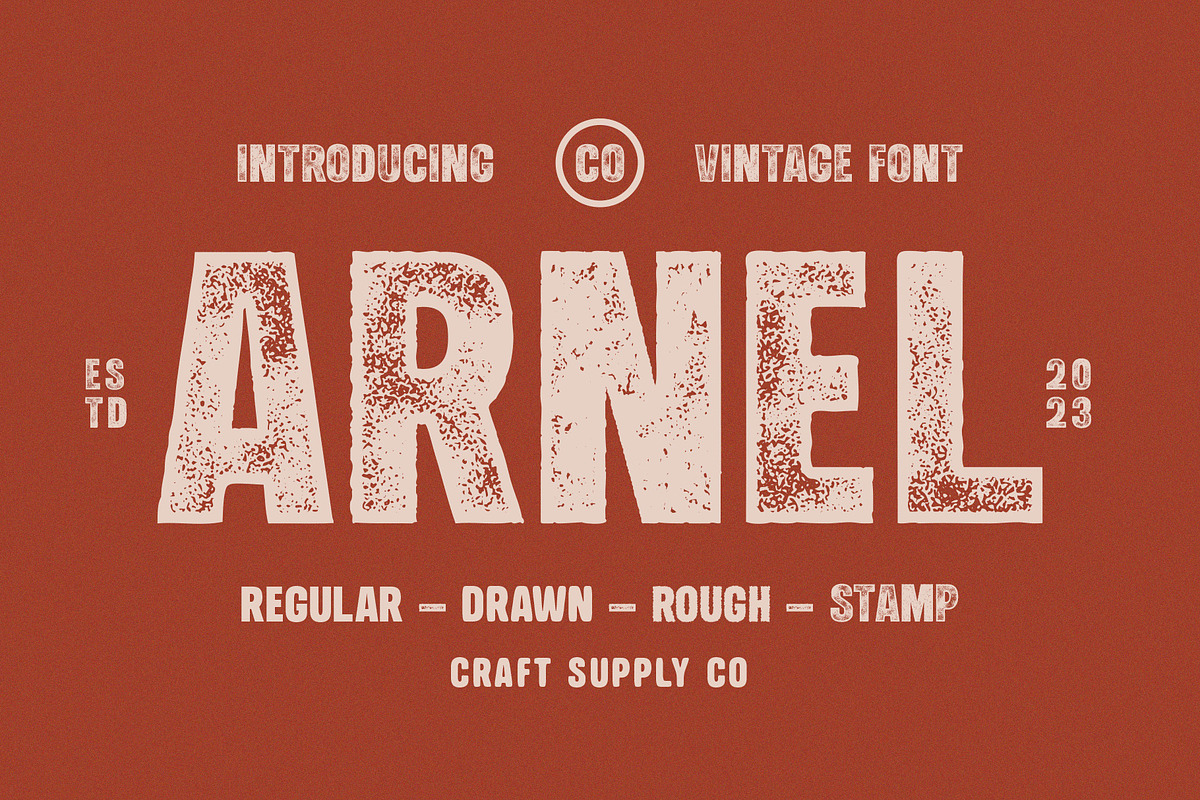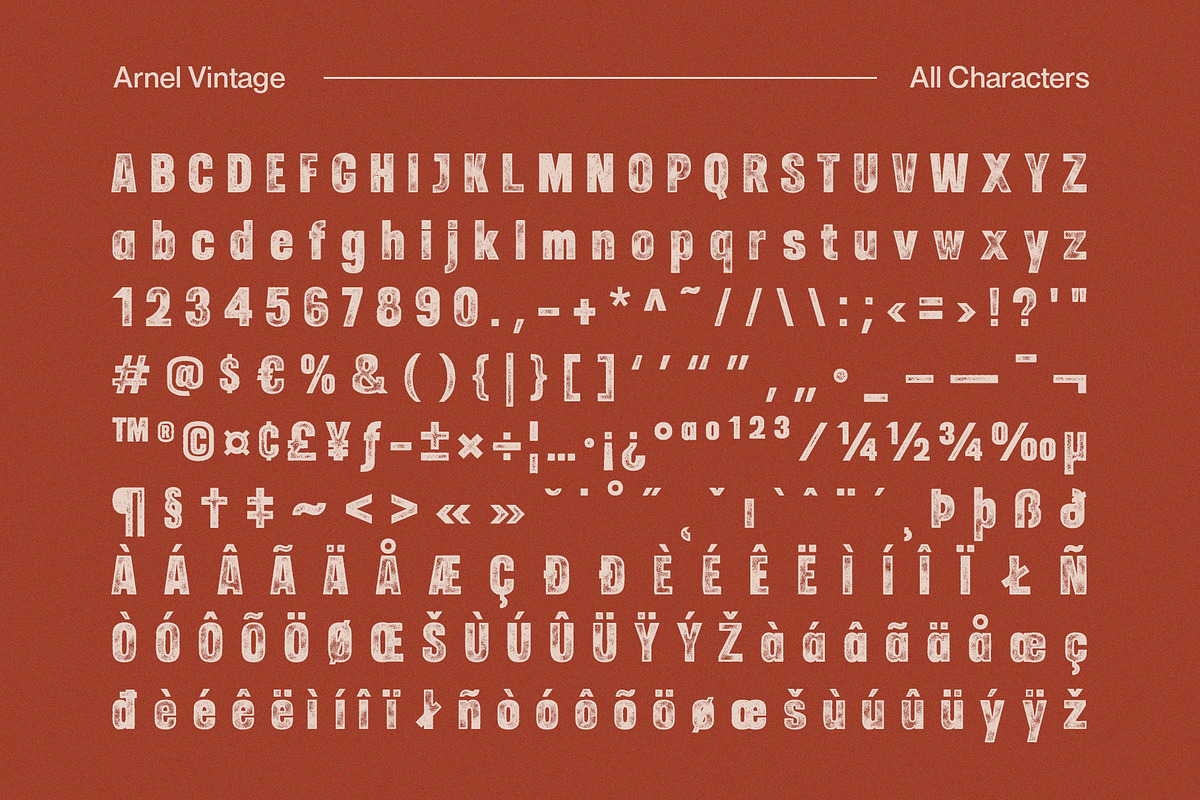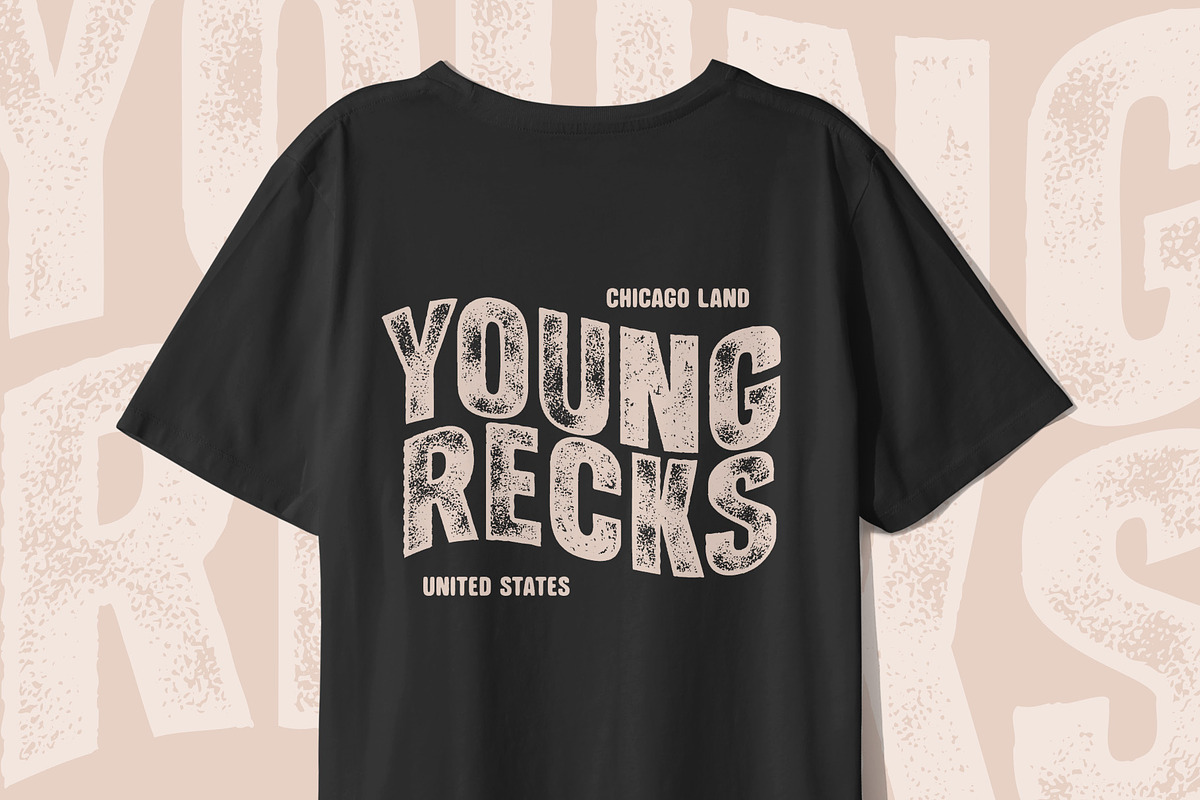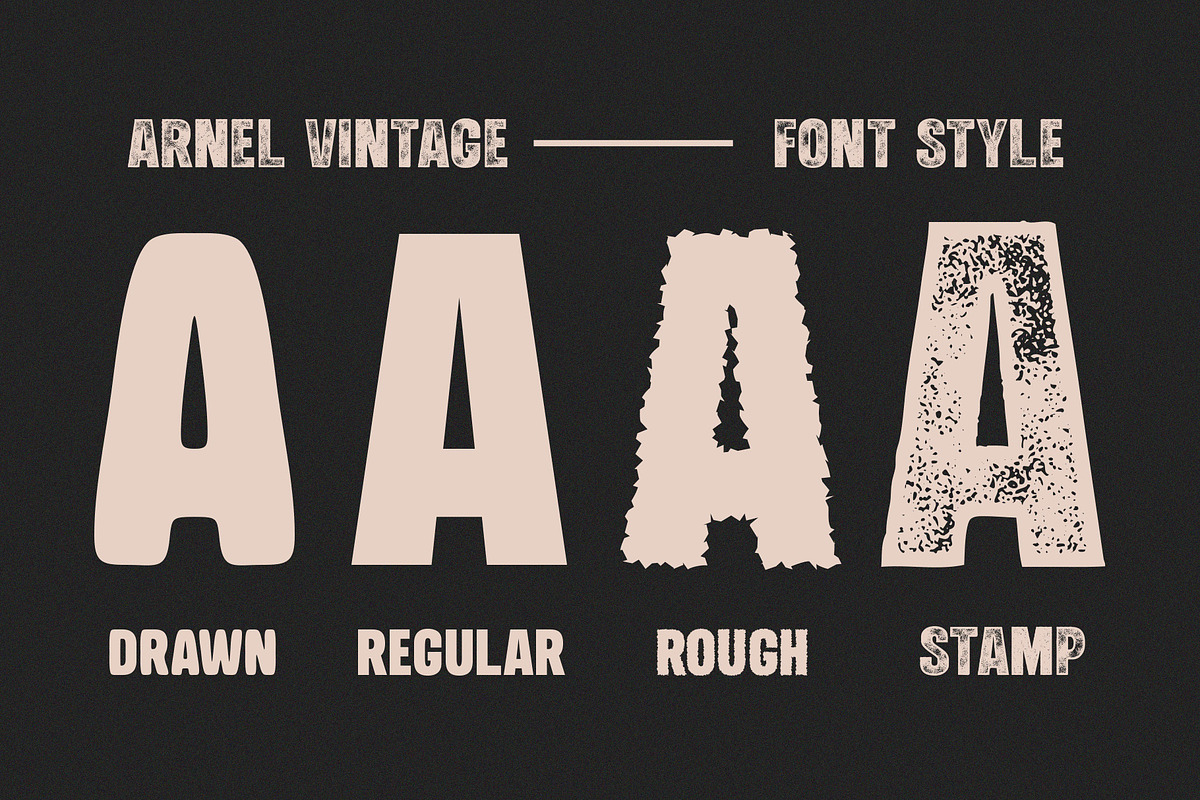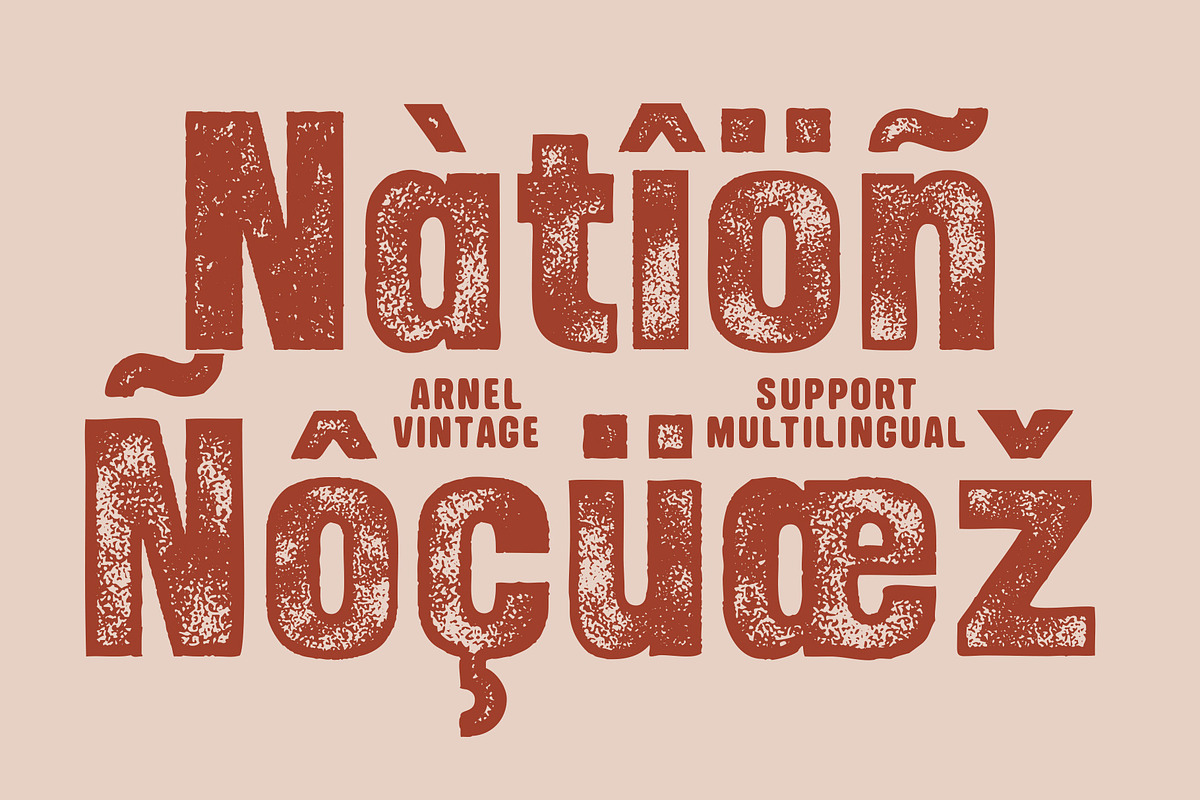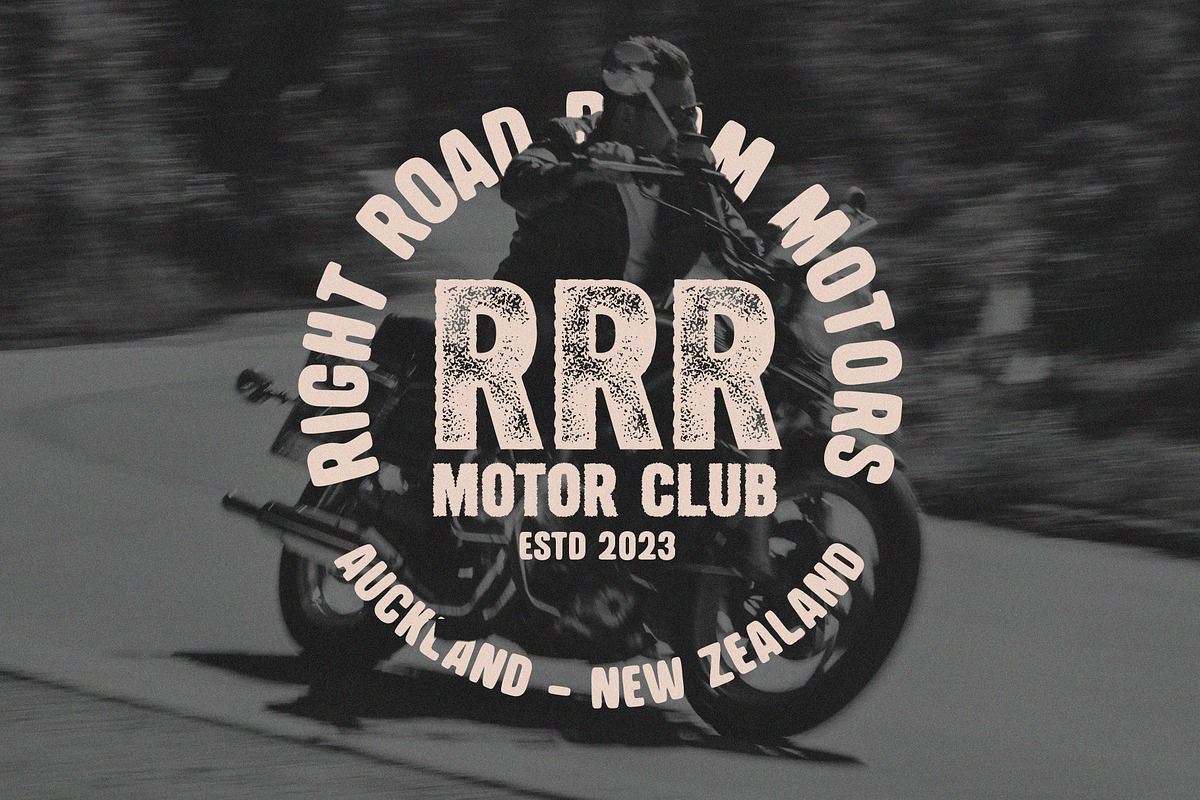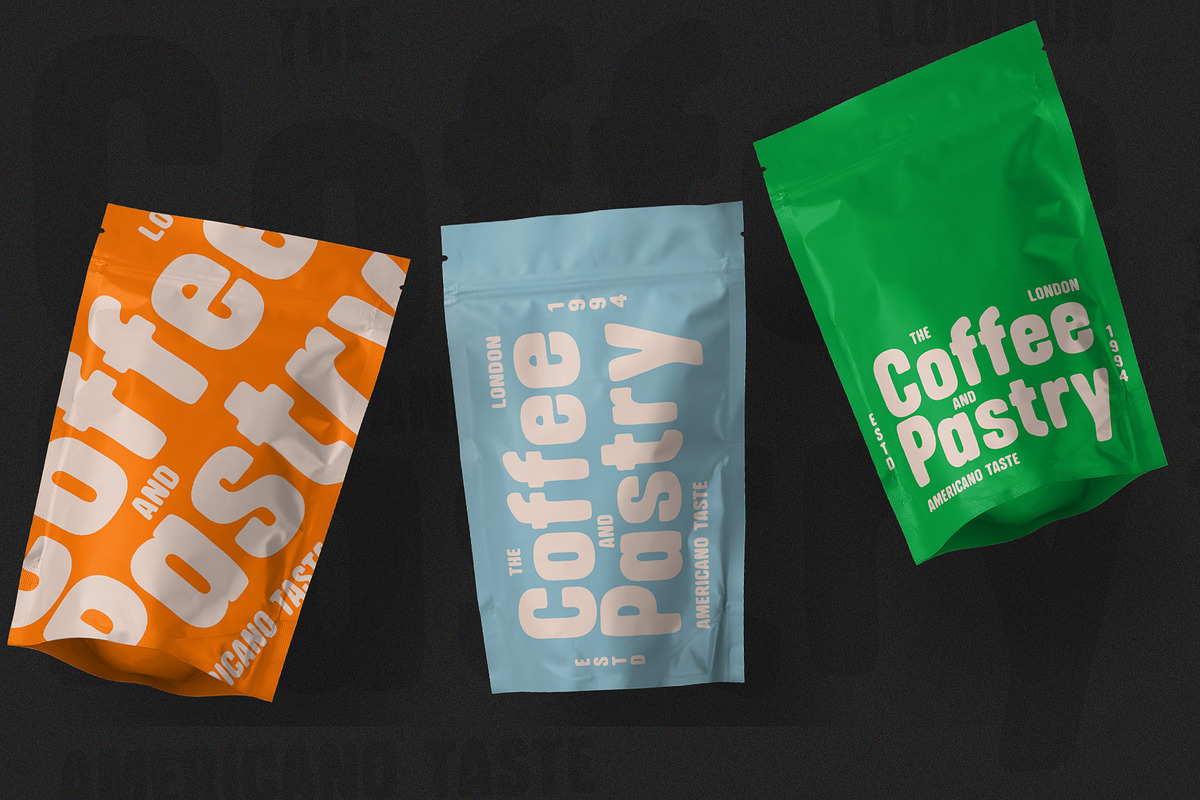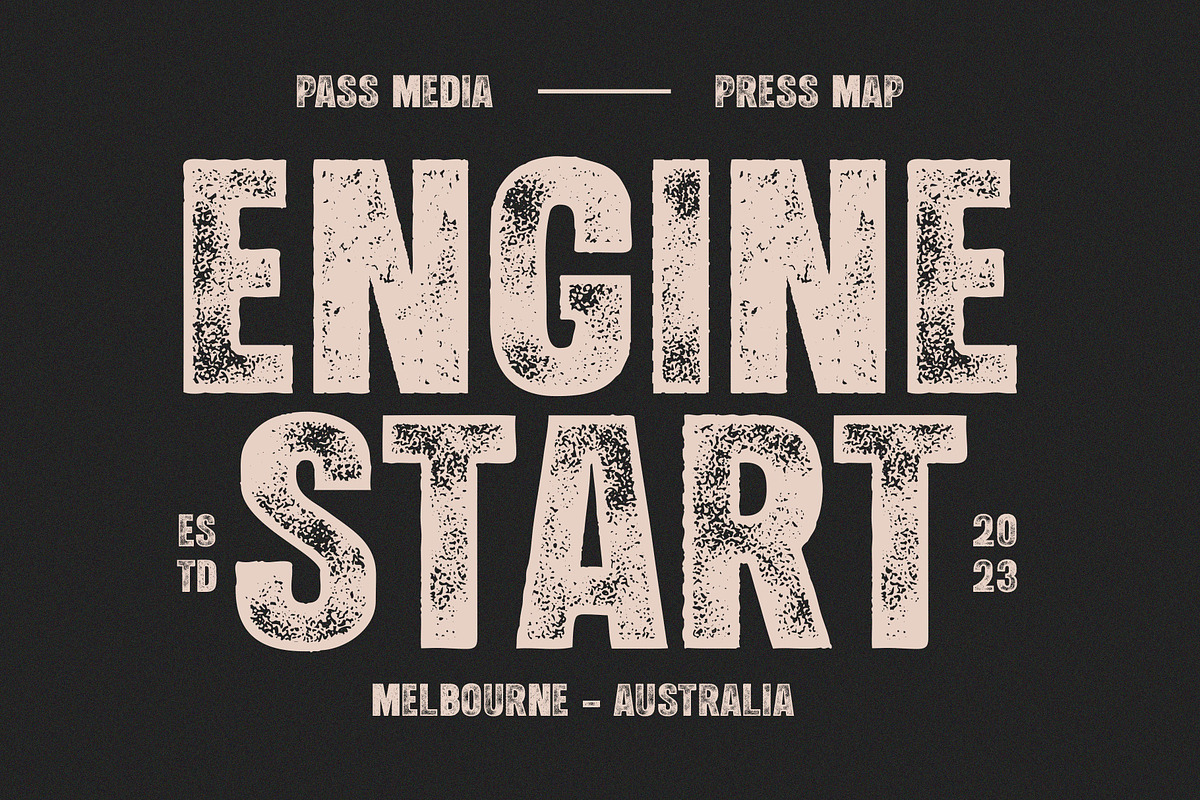
Arnel Vintage Font
Arnel Vintage Font is a striking sans-serif typeface that effortlessly embodies the rustic charm of vintage stamps, capturing a raw and hand-drawn aesthetic. This font is tailor-made for all your vintage display needs, exuding an authentic and weathered appearance that harks back to yesteryears.
With Arnel, you can effortlessly transport your audience to an era of nostalgia and authenticity. Its rough edges and irregularities in letterforms evoke the tactile feel of aged ink stamps, giving your designs a genuine vintage appeal. Whether you're creating posters, labels, or any project that calls for a touch of vintage character, Arnel Vintage Font adds a unique and nostalgic flair. It's like unearthing a hidden treasure in the world of typography, making it the perfect choice for projects that aim to evoke a bygone era's timeless charm and authenticity.
- Arnel Regular
- Arnel Drawn
- Arnel Rough
- Arnel Stamp